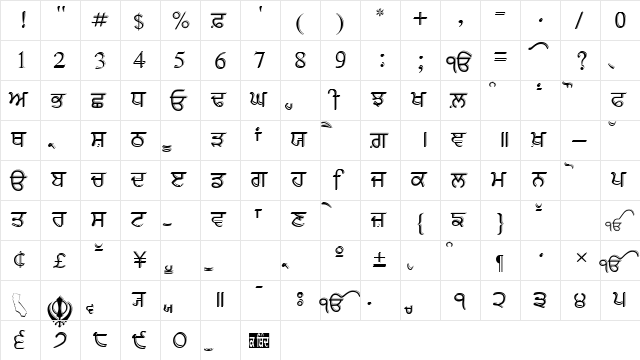
AnmolUbhri Regular
Design Context for AnmolUbhri Typeface
AnmolUbhri takes a measured approach to typography — its balanced proportions and neutral character make it a reliable workhorse for both digital and print work.